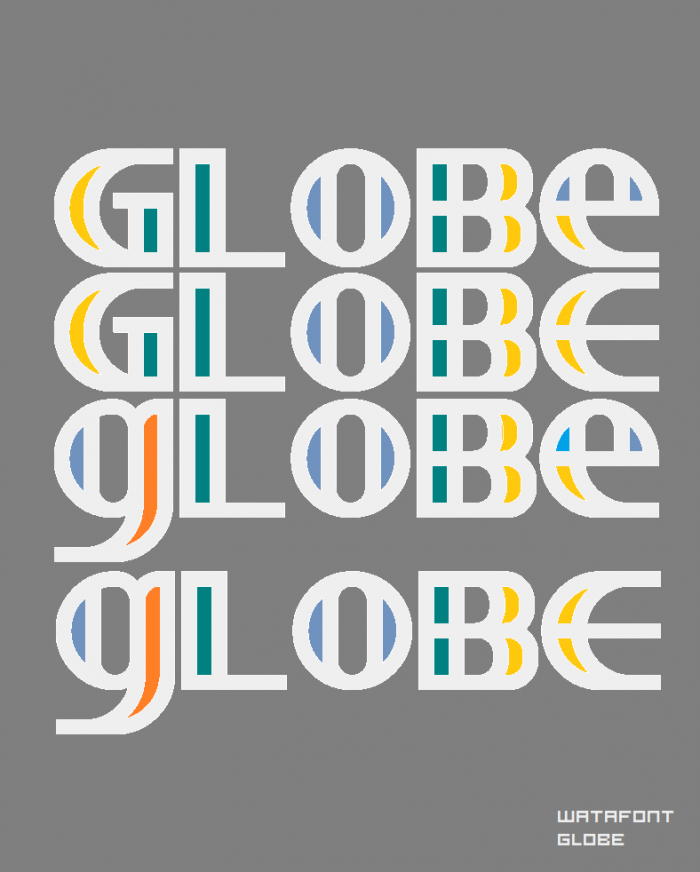
Colors of the third e were different. I'm sorry.(sample)
I love the letters. I think the spacing needs to be a bit wider.
Congratulations! FontStruct Staff have deemed your FontStruction worthy of special mention. “Globe” is now a Top Pick.
Looks a bit Retro-futuristic